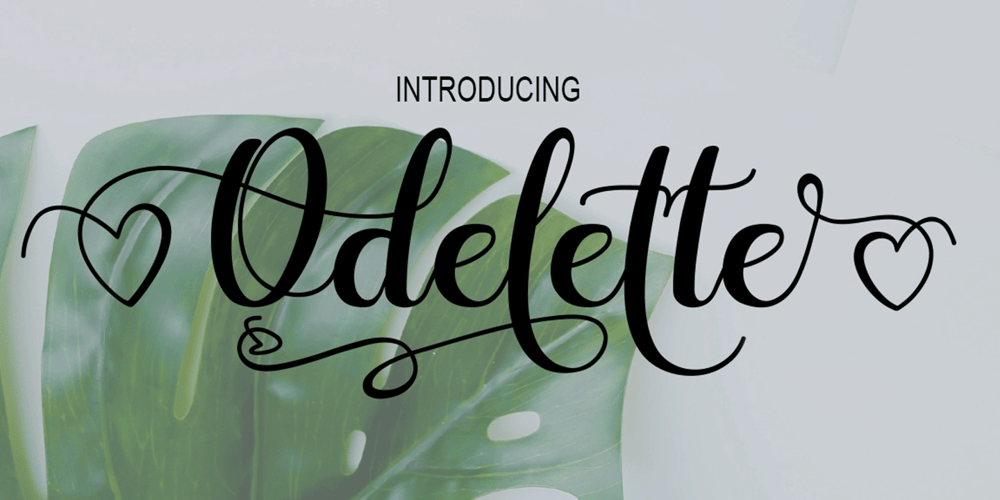
Odelette
Odelette font
Odelette Font Family was designed by Marwah and published by BBA Key. Odelette contains 1 styles and family package options. Odelette is a modern calligraphic script. This font is casual and pretty with a sweeping look. It can be used for various purposes such as logos, product packaging, wedding invitations, branding, titles, signs, labels, signatures, book covers, posters, quotes and more.Odelette features alternative OpenType styles, ligatures and International support for most Western languages included. To enable alternative OpenType Stylistic, you need a program that supports OpenType features like Adobe Illustrator CS, Adobe Indesign & CorelDraw X6-X7, Microsoft Word 2010 or later. Odelette Script is encoded with PUA Unicode, which allows full access to all additional characters without having any special design software. Mac users can use Font Books, and Windows users can use Character Map to view and copy one of the additional characters to paste into your favorite text editor / app. Thanks & Happy Designing!